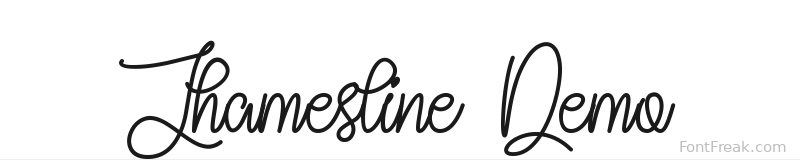
Jhamesline Demo
Jhamesline Demo is a captivating script font designed by Noah Type, classified under the decorative category. This font features elegant, flowing letterforms that exude a sense of warmth and personality. The strokes are gracefully curved, with a medium stroke weight that strikes a perfect balance between legibility and artistry. The contrast in thickness adds a dynamic quality to the typeface, while the generous spacing between characters enhances readability, making it suitable for various applications.
This font is ideal for a range of creative projects, such as wedding invitations that demand a touch of sophistication, eye-catching movie posters that require a stylish title, or charming restaurant menus that aim to convey a welcoming atmosphere. Additionally, Jhamesline Demo is perfect for branding elements, such as logos for boutiques or artisanal products, where a personal touch is essential. The unique characteristics of this font will resonate particularly well with graphic designers, small business owners, and content creators looking to elevate their visual identity.
What sets the Jhamesline Demo font apart is its ability to blend creativity with clarity, making it versatile for both formal and casual contexts. Its free availability as a freeware license allows anyone to incorporate this beautiful typeface into their designs without worry. Whether you are crafting a heartfelt invitation or designing promotional materials, the Jhamesline Demo font free download provides an excellent option for those seeking to make a lasting impression. With its charming aesthetic and practical usability, this font is sure to become a favorite among creative professionals and enthusiasts alike.